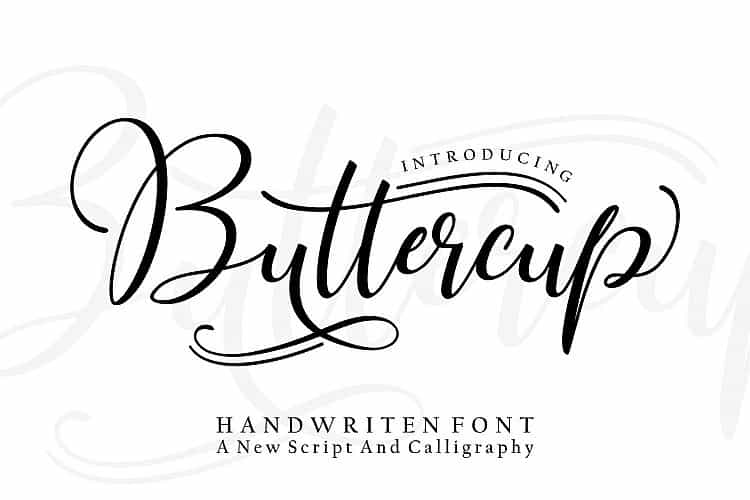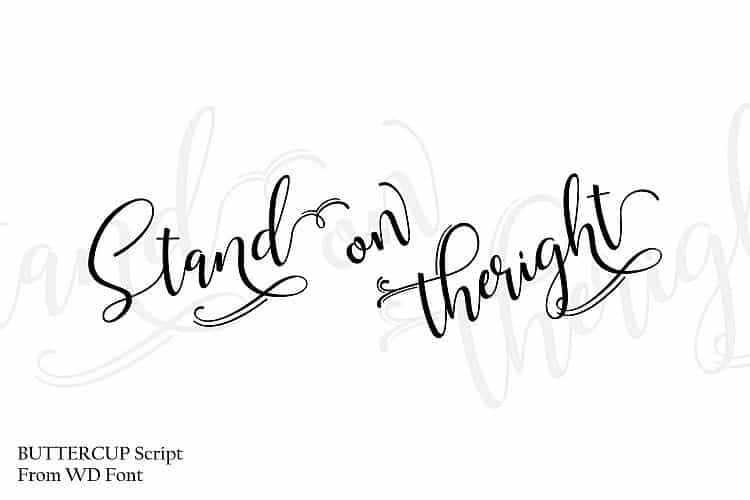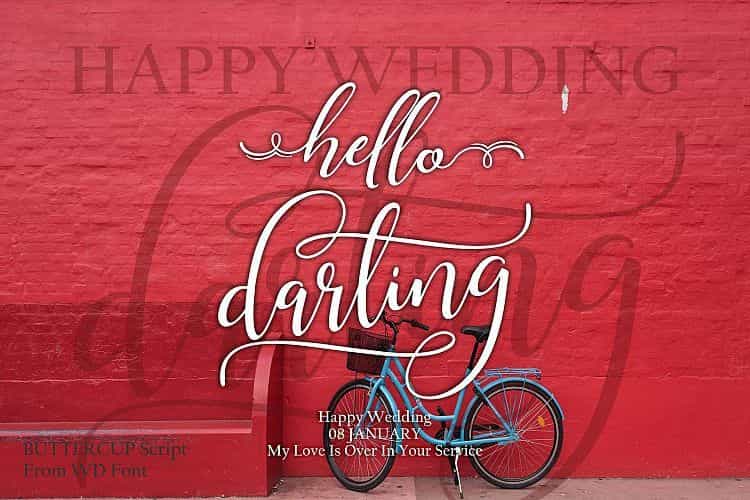
Discover Buttercup Handwritten Font, part of the Calligraphy Handwritten collection—a versatile and unique font perfect for adding a personal touch to your projects. Download it for free and enjoy crafting designs with style, from invitations to social media posts. This font is available exclusively for personal use, giving you the freedom to create without limits. Unlock your creativity with Buttercup Handwritten Font today!
Introducing Buttercup Font. However, Buttercup Handwritten Font is a nice and elegant handwritten font that is also modern. It is very suitable for feminine, elegant and luxurious designs. It has a clean and modern look that can be used for Invitations, greeting cards, branding materials, quotes, posters, and many other things.